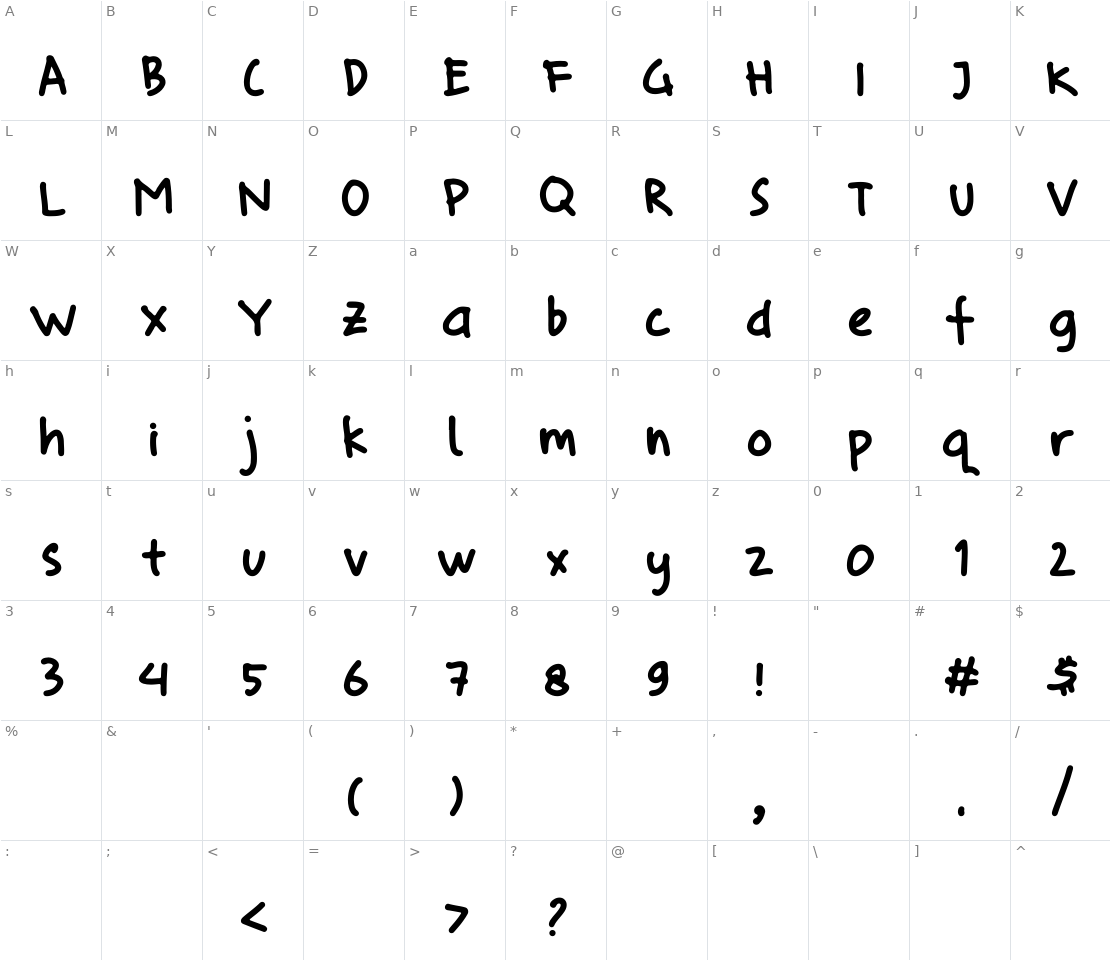
Colombo Sketches
by hati
Colombo Sketches is a bold, rounded handwritten face by hati that has the easy confidence of someone lettering a sign with a thick marker. The strokes are casual and slightly uneven, giving it a friendly, informal warmth that works well for headlines, packaging, and branding where you want something that feels approachable and human rather than digitally precise.